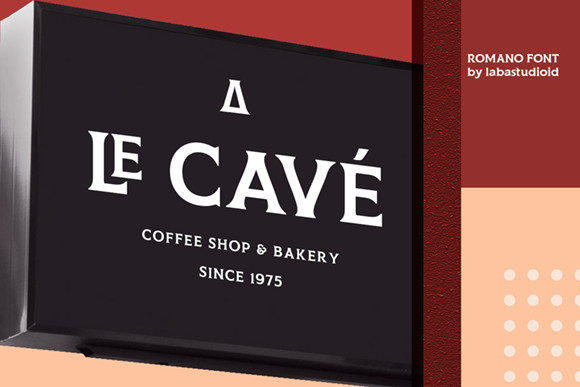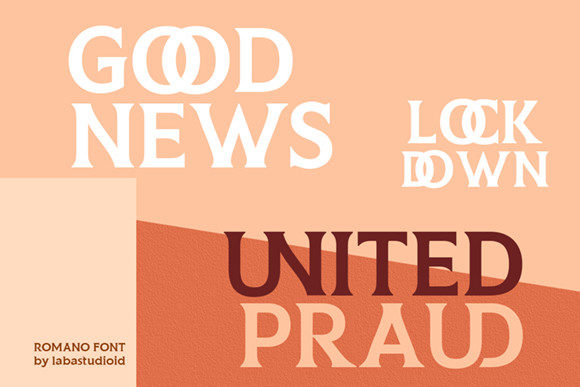
Romano Font
Romano is a San Serif font that combines classical romance and modern touches to appear straightforward and unique to be a true favorite in your design. Romano still looks unique for various design works, starting with the logo, brochure, invitation, business cards, nameplates, and more.